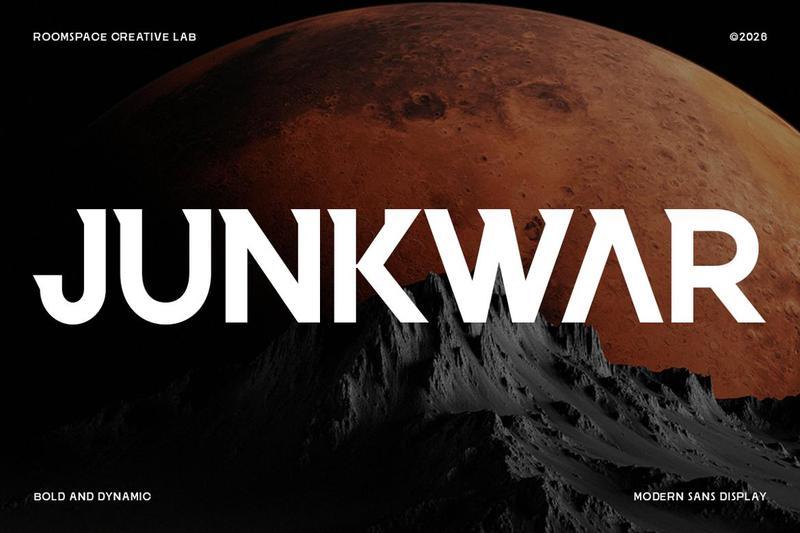
**Junkwar** is a futuristic sans display font crafted for powerful visual communication. Inspired by sci-fi worlds, gaming culture, and modern technology, it combines geometric precision with bold letterforms to create striking headlines and memorable branding. Designed for maximum impact, Junkwar performs exceptionally well in esports branding, technology campaigns, poster design, social media graphics, and futuristic visual identities.
* Bold futuristic display design
* Uppercase & lowercase
* Multilingual support
* Modern geometric construction
* Strong headline performance
* Clean spacing and kerning